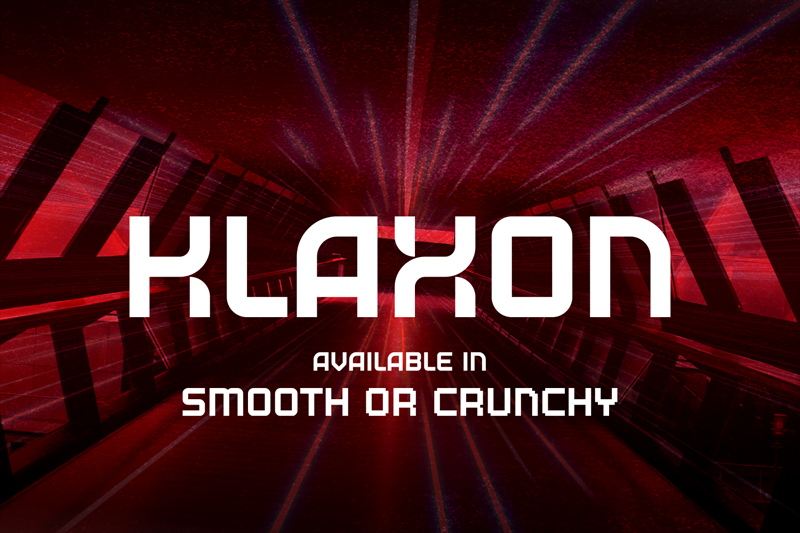
Klaxon Crunchy
Edward Batkins · Regular, Klaxon Smooth · Klaxon Crunchy
As the name suggests, there is nothing subtle about Klaxon. It's big and it's loud. And like peanut butter, it's available in two varieties: smooth and crunchy. I'd love to see where you use it! Drop me a note on Instagram: @edwardbatkins